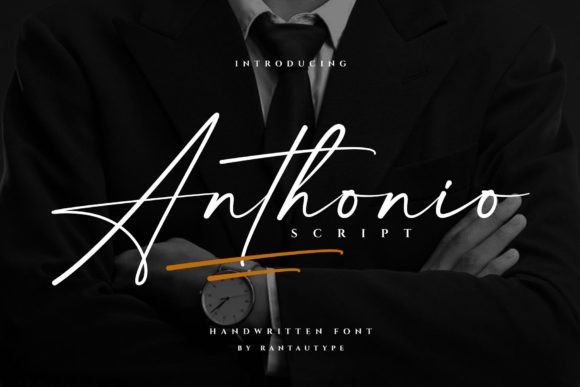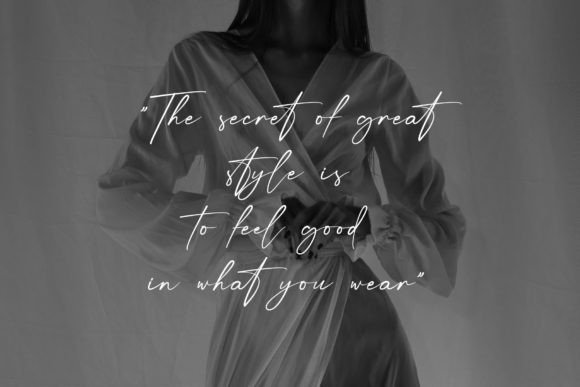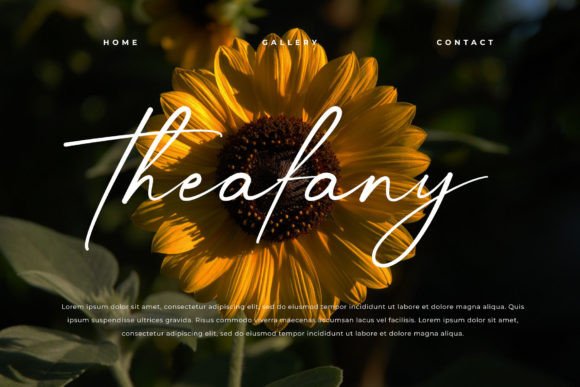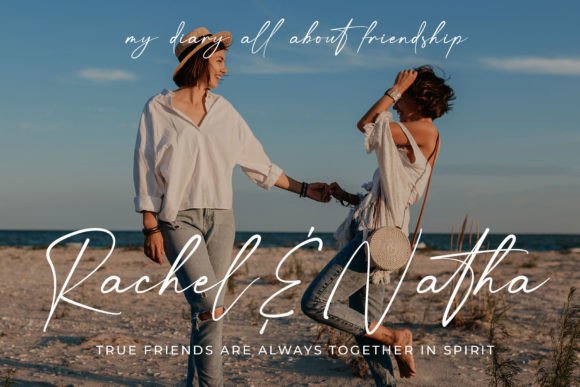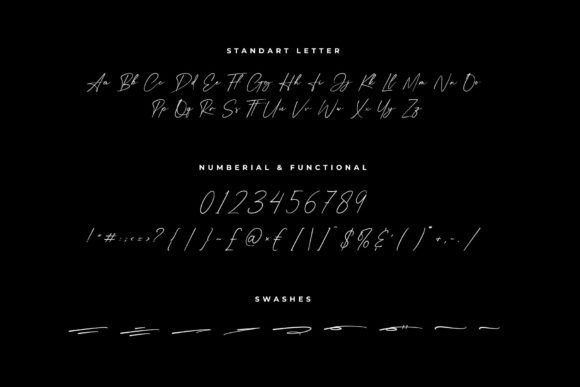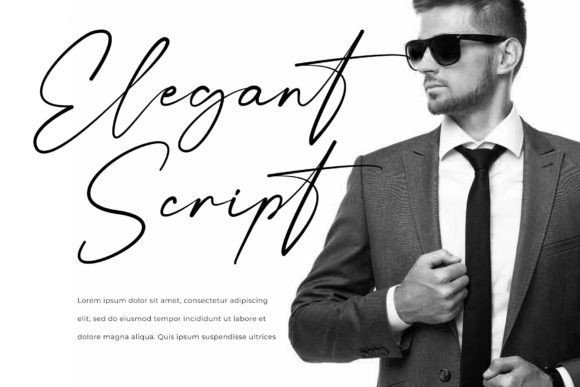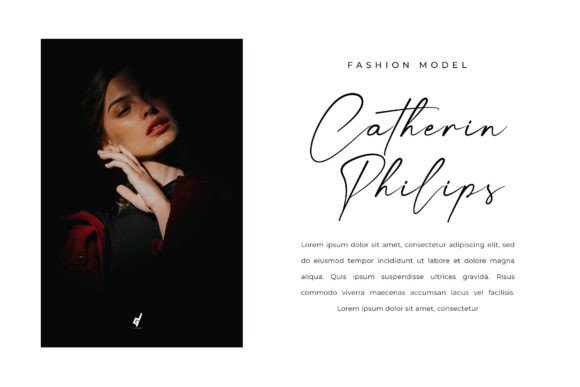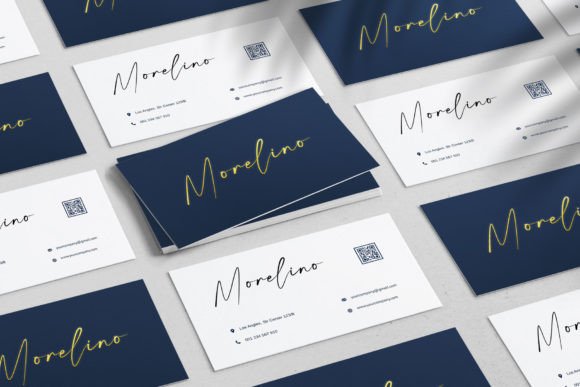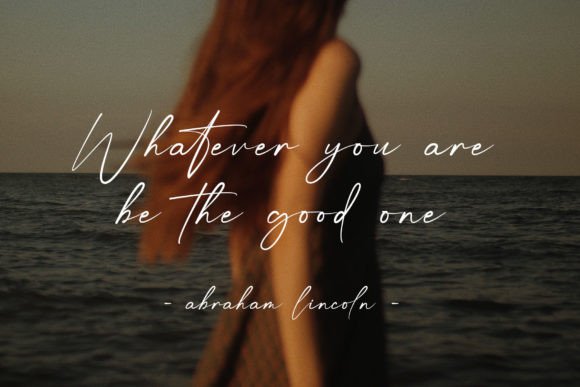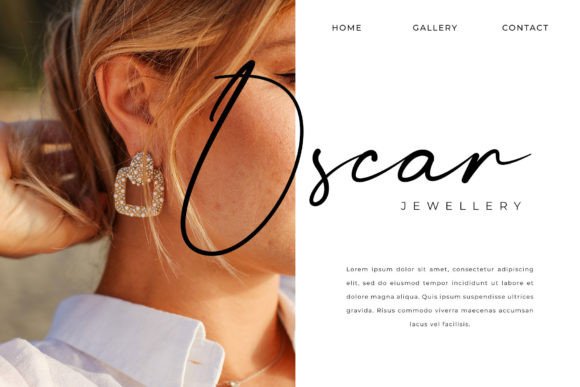
Anthonio Script Font
Add Charming Elegance with Anthonio Script Font
The Anthonio Script font is a charming and elegant handwritten script that brings sophistication and warmth to your creative projects. Perfect for wedding invitations, thank you cards, quotes, greeting cards, logos, business cards, and any design requiring a beautiful handwritten touch, Anthonio Script elevates your work with style and grace.
Perfect for Invitations, Cards, and Branding
The Anthonio Script font excels in a variety of design applications including wedding stationery, personalized cards, branding materials, social media graphics, and product packaging. Its flowing letterforms and refined strokes add a luxurious and heartfelt feel to your projects.
Despite its decorative style, the Anthonio Script font maintains excellent readability across various sizes. Whether used for headlines, logos, or smaller text elements, it balances charm with clarity, making it a versatile choice for many creative projects.
Make Your Designs Shine with Elegant Handwriting
Typography defines the tone and personality of your design, and Anthonio Script adds a graceful and heartfelt spirit. If you want to elevate your projects with a charming handwritten script, download the Anthonio Script font today and create stunning, memorable visuals.